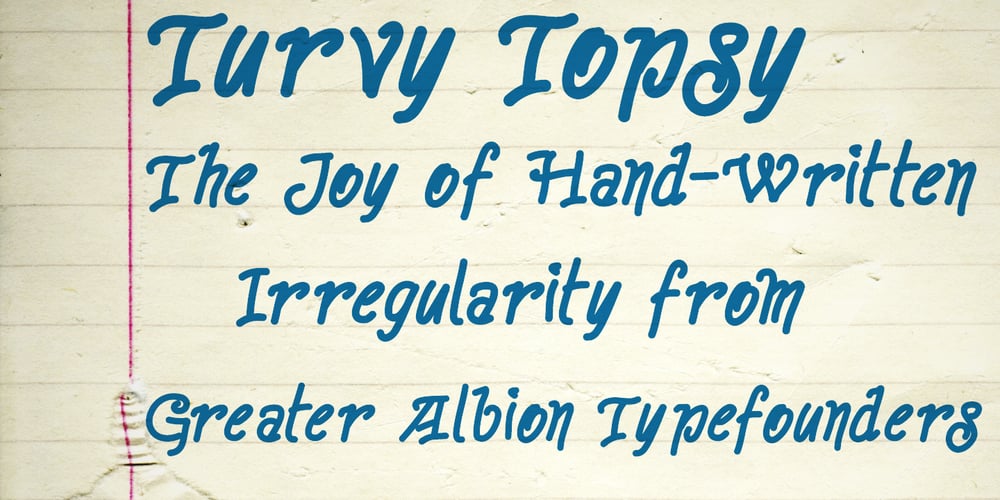
TurvyTopsy Font Family was designed by Paul James Lloyd and published by Greater Albion Typefounders. TurvyTopsy contains 1 styles and family package options. TurvyTopsy offers all the fun of delightful hand-drawn irregularity, captured in a typeface. Designing this was a wonderful exercise in ignoring all the rules of precise geometric construction to which we normally work. These irregular forms somehow achieve a delightful character & legibility all of their own.